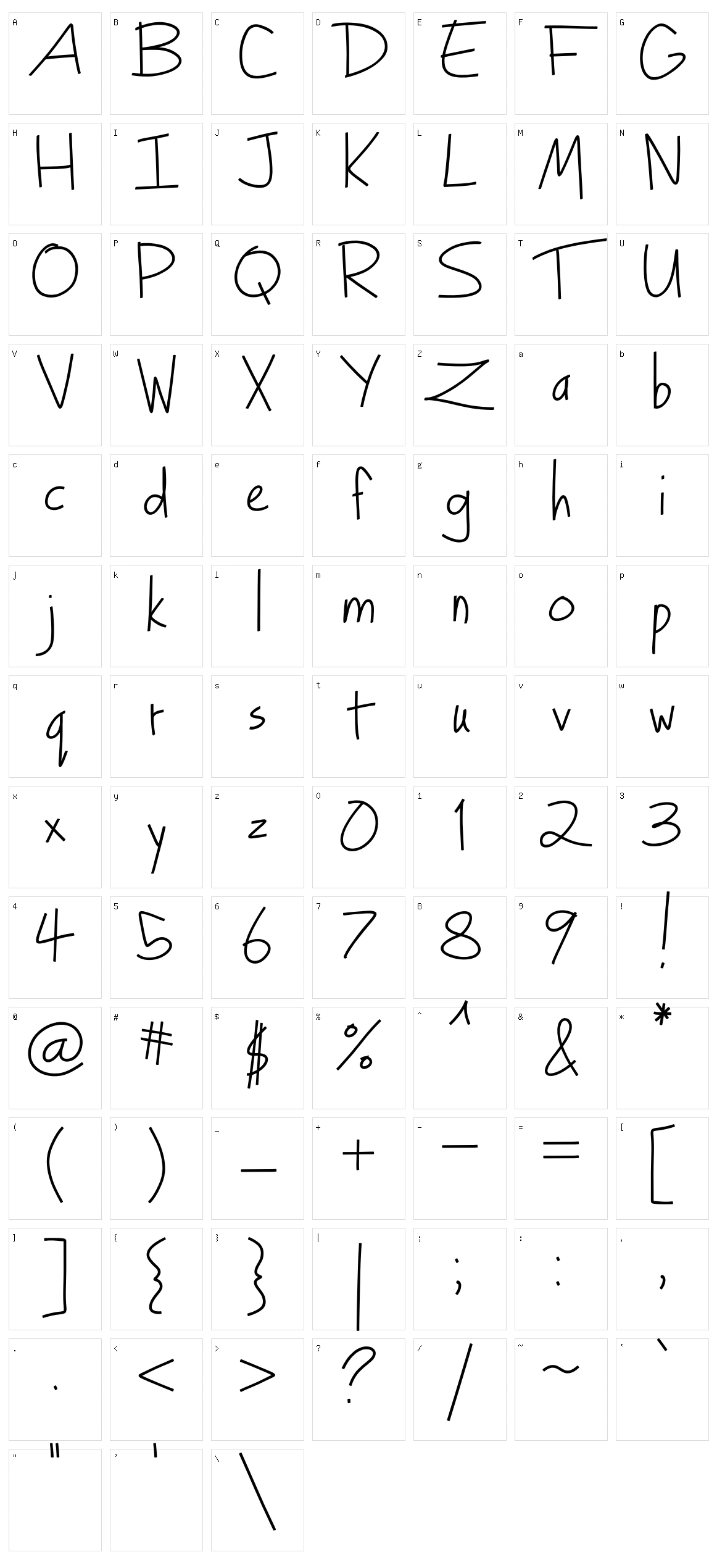
Cool thing: All of my handwritten fonts utilize OpenType contextual and stylistic alternatives for a more realistic handwritten appearance. With OpenType features turned on, double letters will not appear to be identical. OpenType features are accessible in most design-related applications as well as many unrelated applications. You can read my article on how to use OpenType features in Microsoft Word here: http://leeviathan.com/opentype-features-and-how-to-use-them/#content